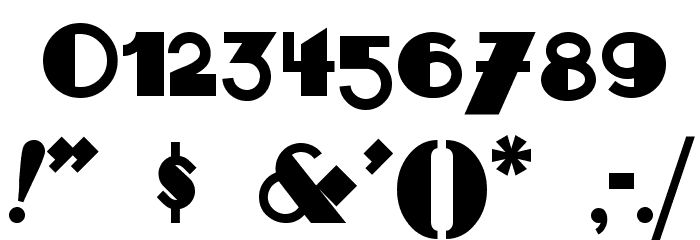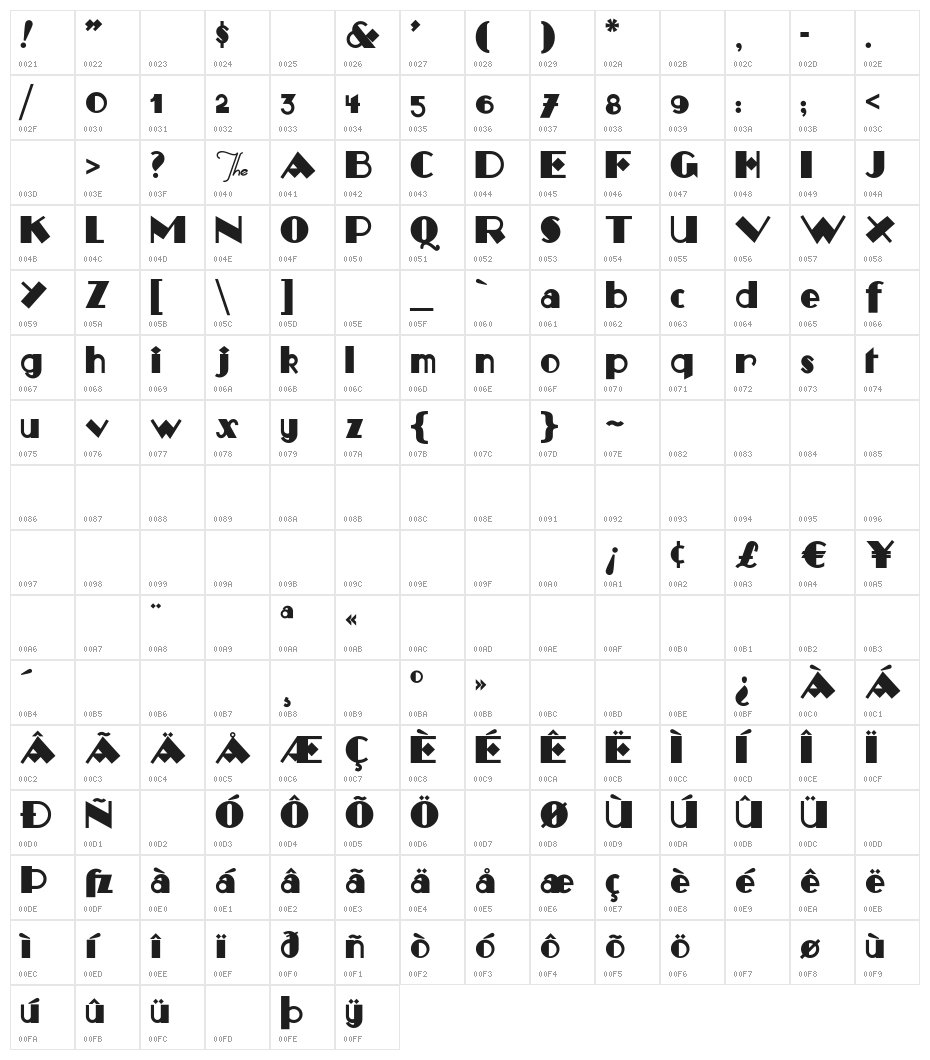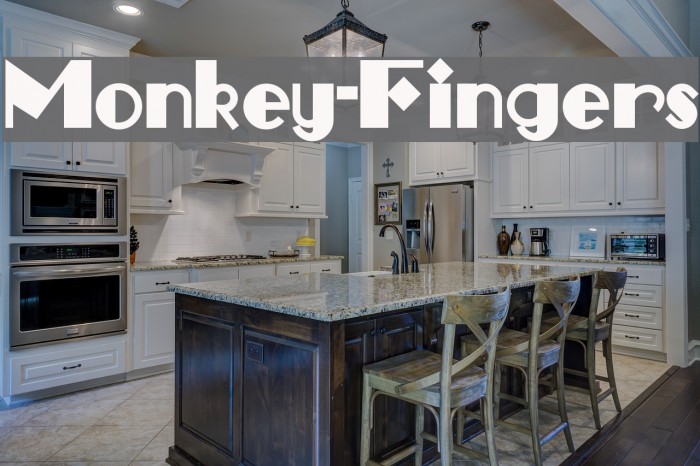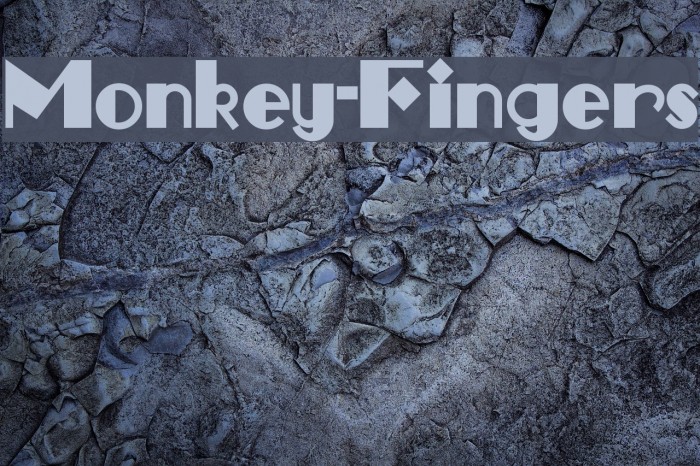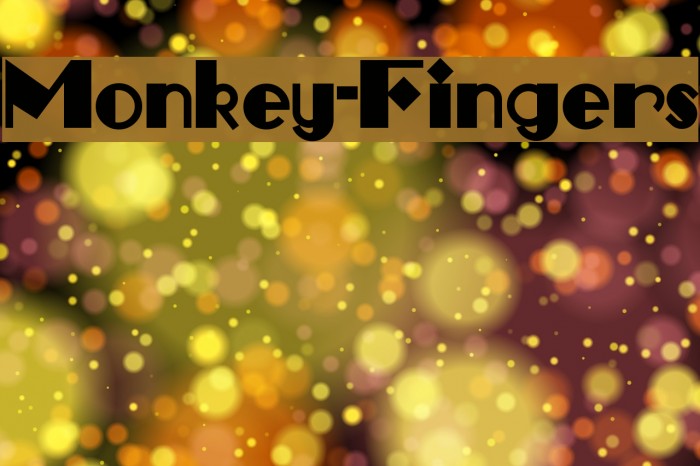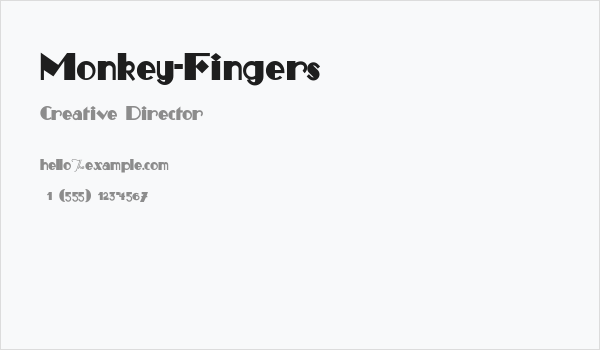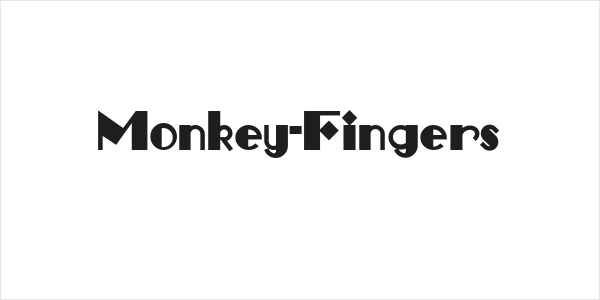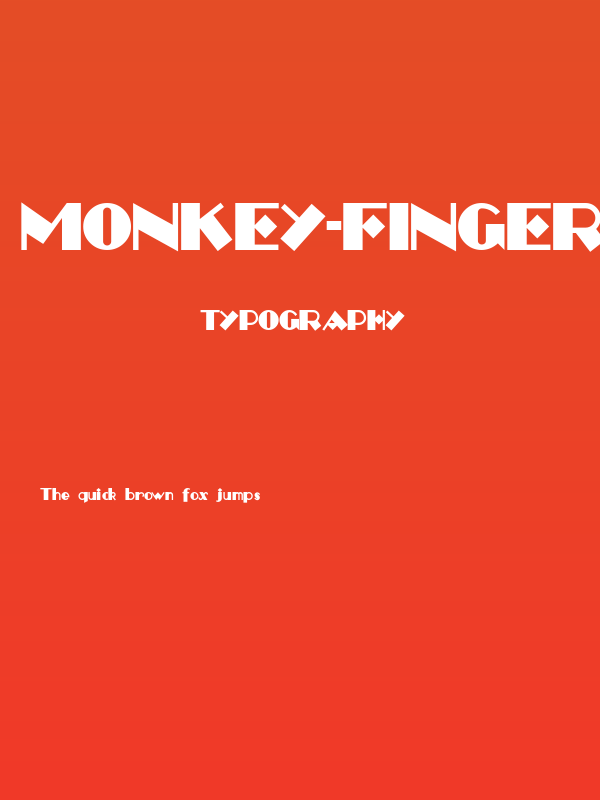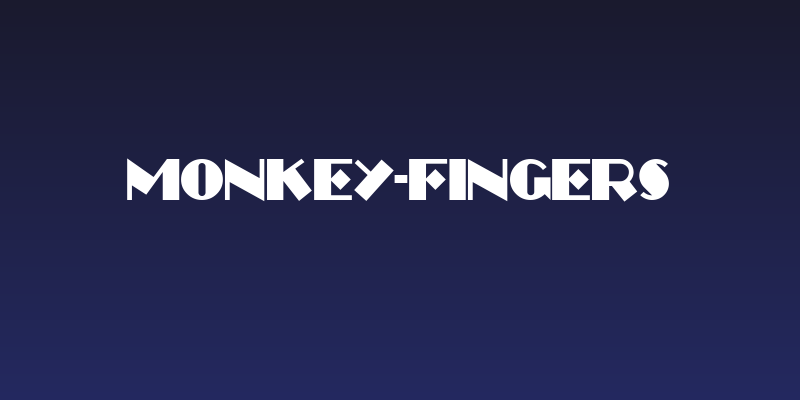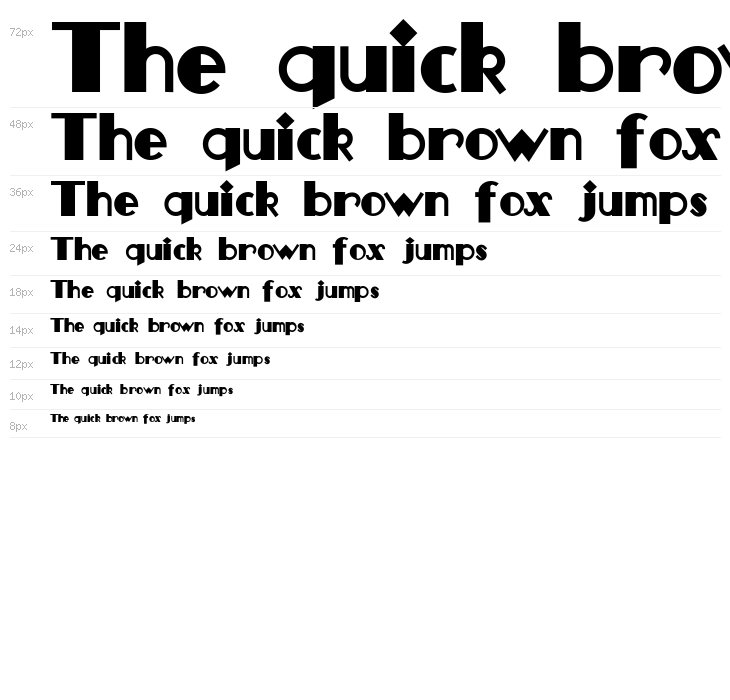
Monkey-Fingers Font
Monkey-Fingers Description
This font features a bold and geometric design with a playful and unique character. The uppercase letters are characterized by sharp angles and distinct shapes, giving them a strong and striking appearance. The lowercase letters maintain the boldness but introduce more curves, adding a touch of softness to the overall look. The numbers are consistent with the bold style, ensuring readability and uniformity. Special characters are creatively designed, maintaining the geometric theme while adding a quirky flair. This font is perfect for projects that require a modern and eye-catching typeface.
| Proposed Projects | Ideal for branding, posters, headlines, and any design that needs a modern and bold statement. |